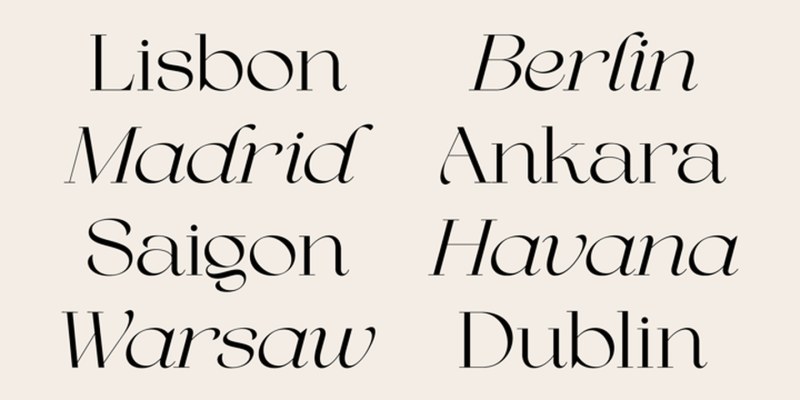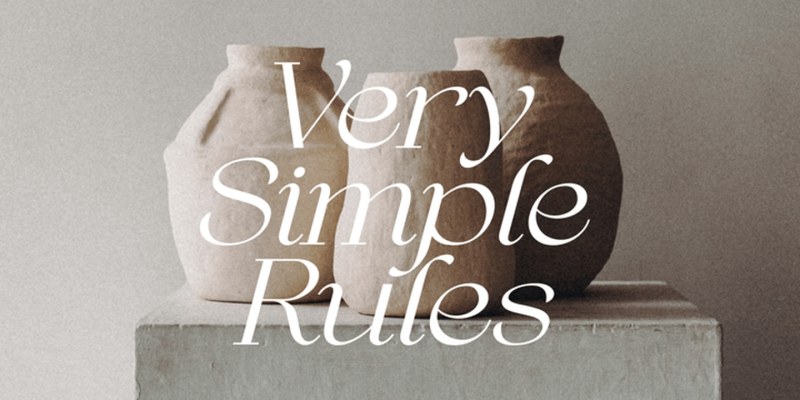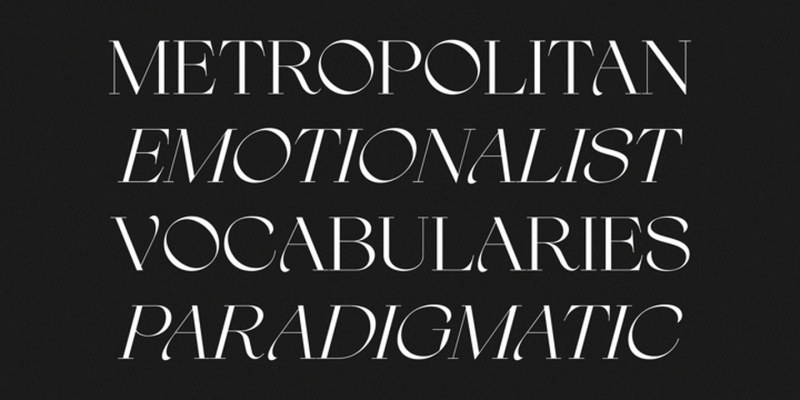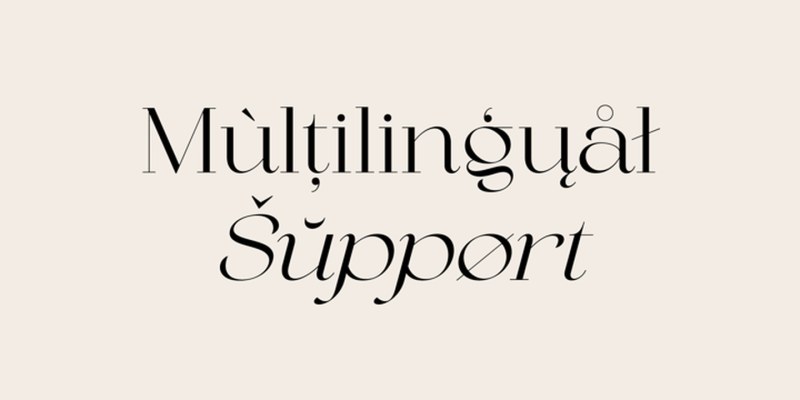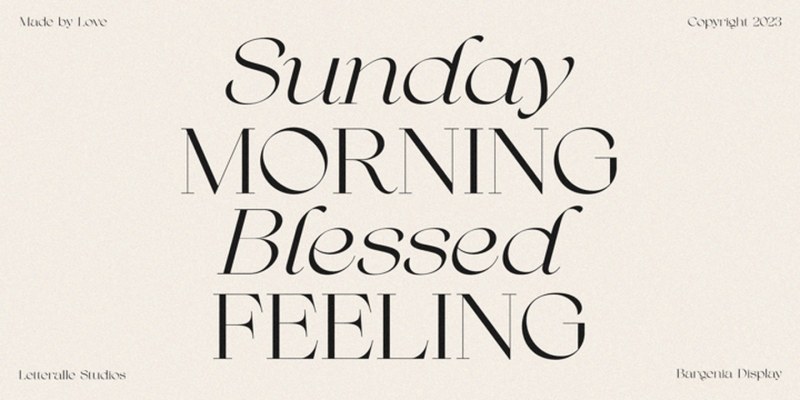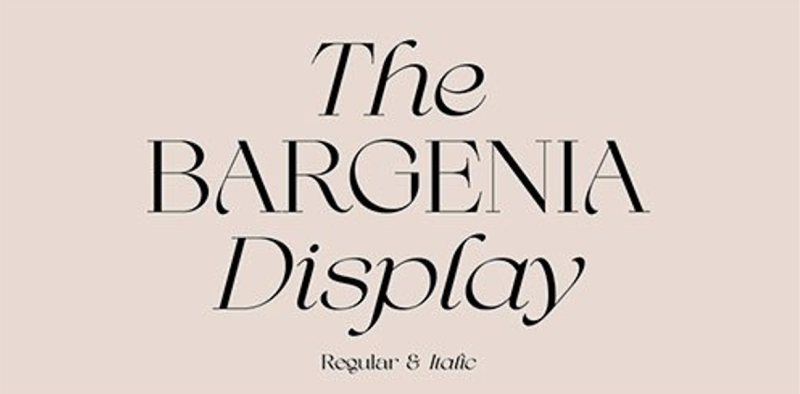
Bargenia Font Family
Introducing, Valery! a serif display font with a modern yet luxurious style. Aesthetic and unique letterforms, as well as soft curves are the hallmark of this font. Valery is a versatile and multigender font. Perfect for editorial projects, Logo design, Wedding, Clothing Branding, product packaging, magazine headers, or simply as a stylish text overlay to any background image.
Where Bargenia Font Family works best
Thumbnails and covers
Bargenia Font Family is built to be recognised small. Three words, high contrast, and it survives being scaled to a phone screen.
Event and match posters
Display letters at full width make a date and a name readable across a room, which is all a poster has to do.
Merch and streetwear
Heavy display shapes print cleanly on fabric and stay legible when the garment moves.
What kind of work does Bargenia Font Family suit?
It sits in the Display Fonts group and reads as branding, display, display fonts, luxury. That makes it a candidate wherever those qualities help: headings, packaging, social graphics and brand work. Set it at the size you plan to use before deciding.